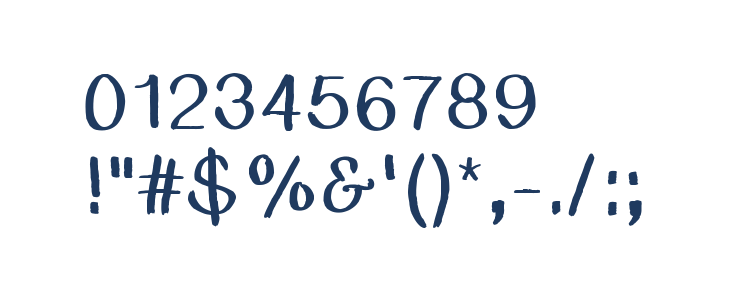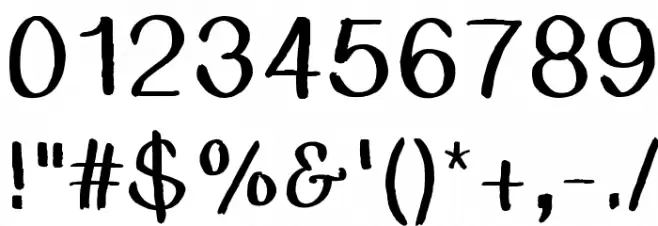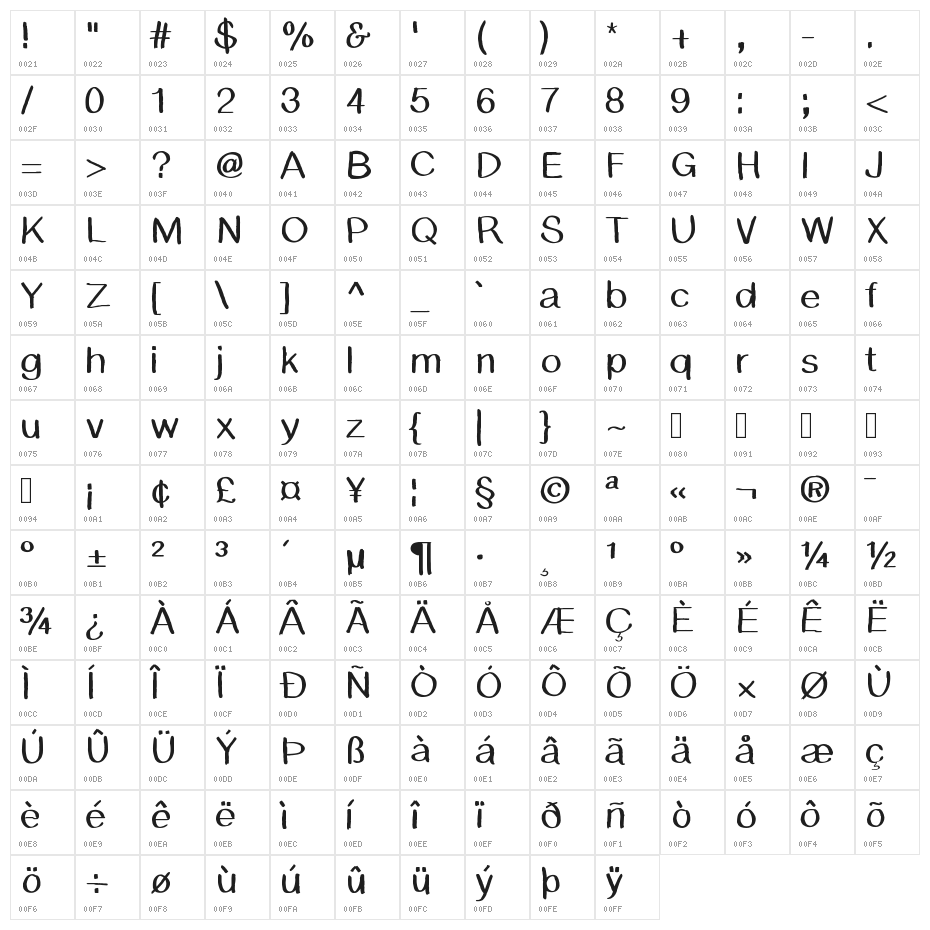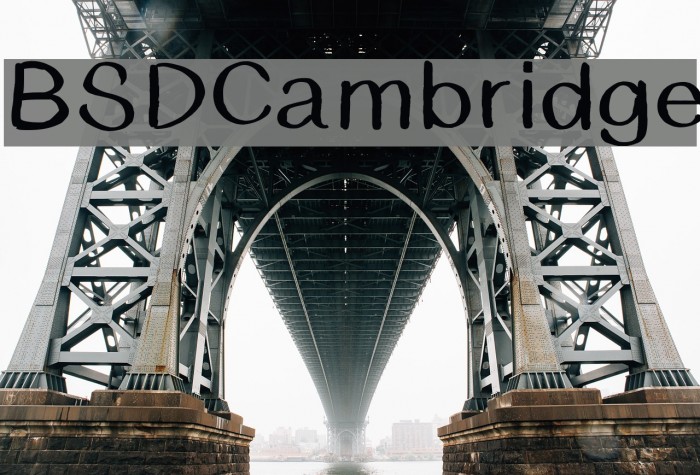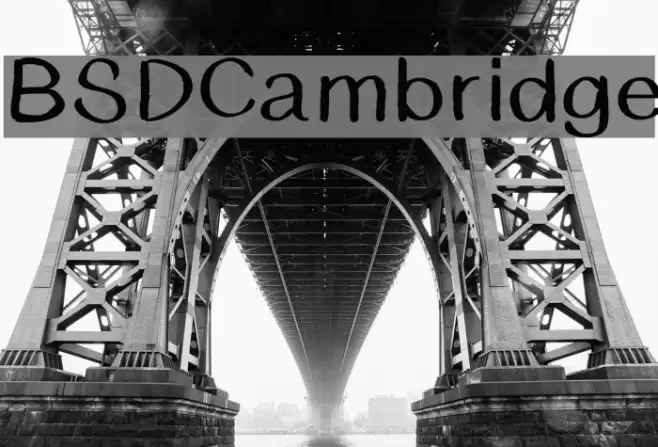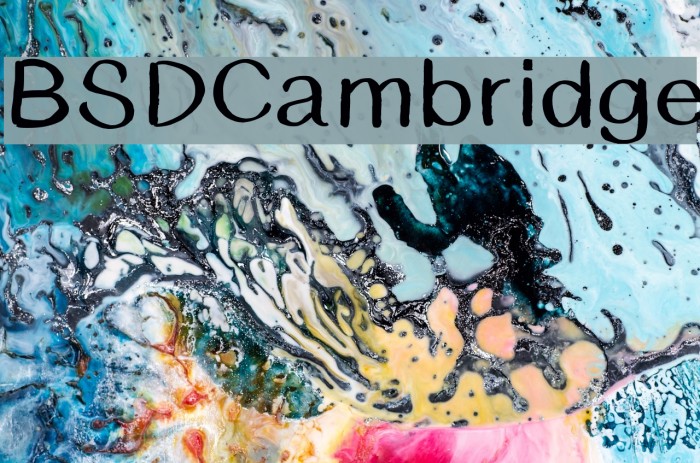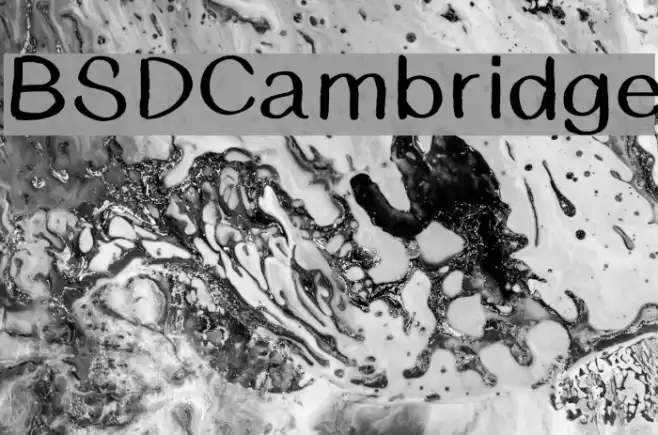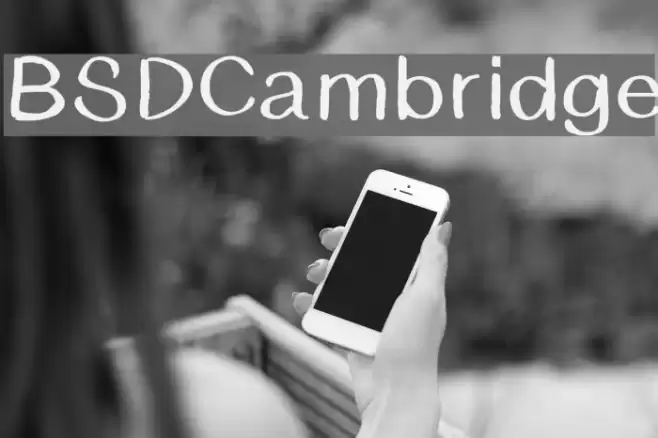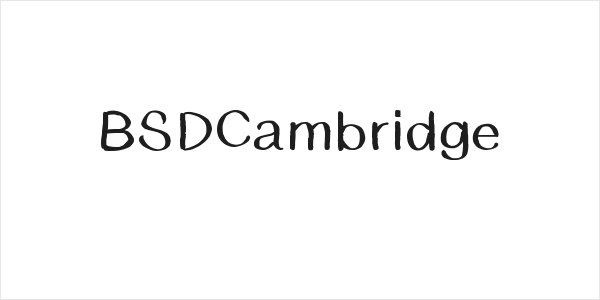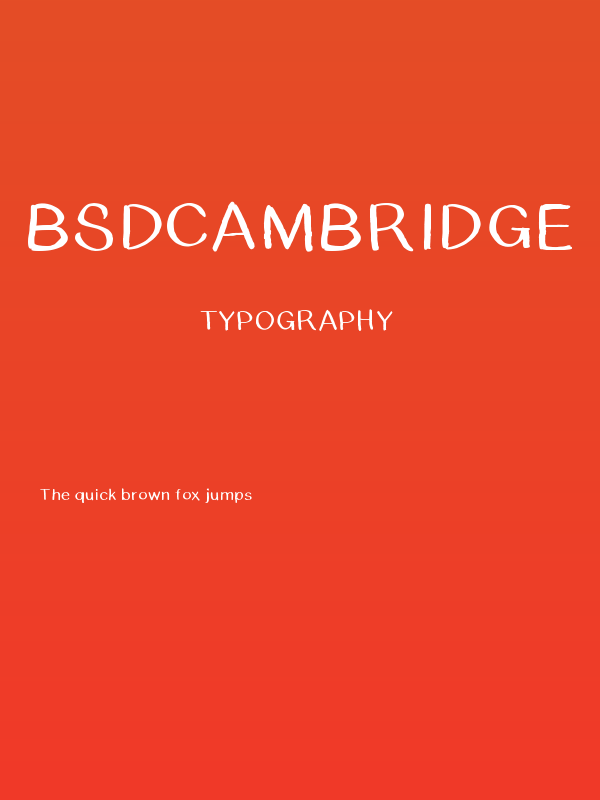
BSDCambridge Font
This font features a playful and casual handwritten style, characterized by its uneven strokes and slightly irregular letterforms. The uppercase letters are bold and prominent, while the lowercase letters maintain a consistent flow, adding to the informal aesthetic. The numerals are clear and legible, matching the overall style of the alphabet. Special characters are included, complementing the font's versatility. The font's organic appearance makes it suitable for projects that require a personal touch or a relaxed vibe.
| Proposed Projects | Ideal for greeting cards, casual invitations, children's books, and personal branding. |